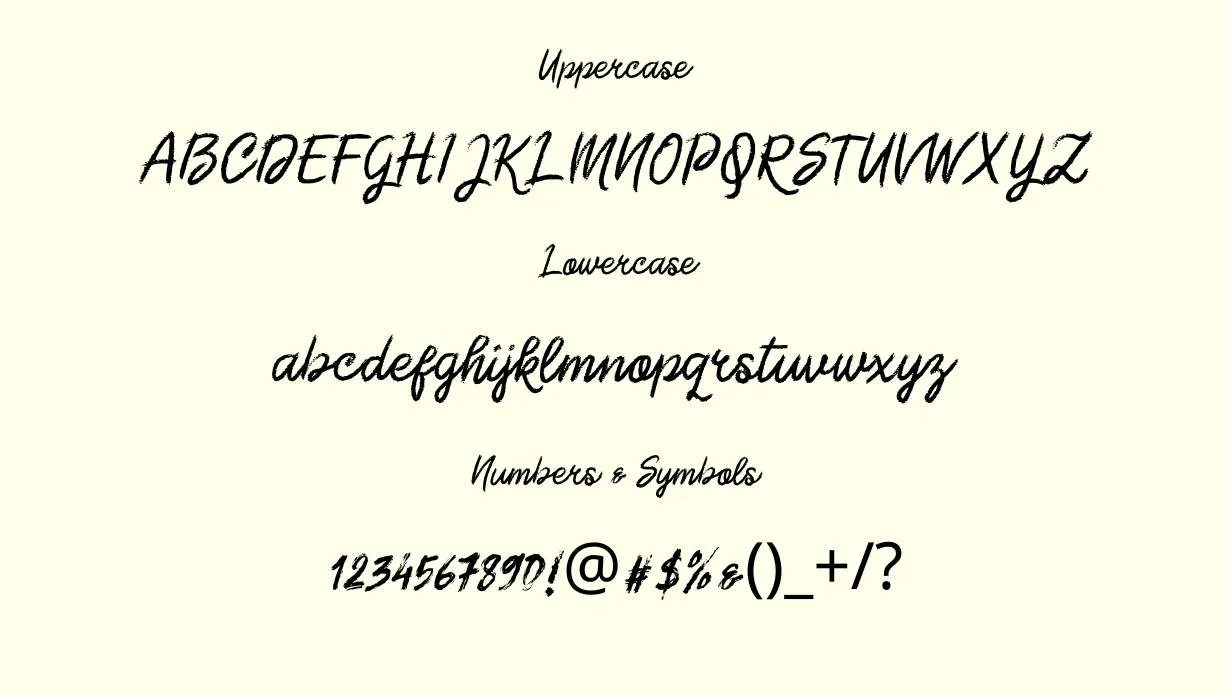
Morgan Chalk Script Font is a casual and friendly handwritten typeface that adds a personal and welcoming touch to various design projects.
With its chalkboard-inspired appearance, it’s commonly used in educational materials, cafe menus, and creative branding. This font creates an approachable and down-to-earth atmosphere in design work.
| Name | Morgan Chalk Script Font |
| Designer | cove703 |